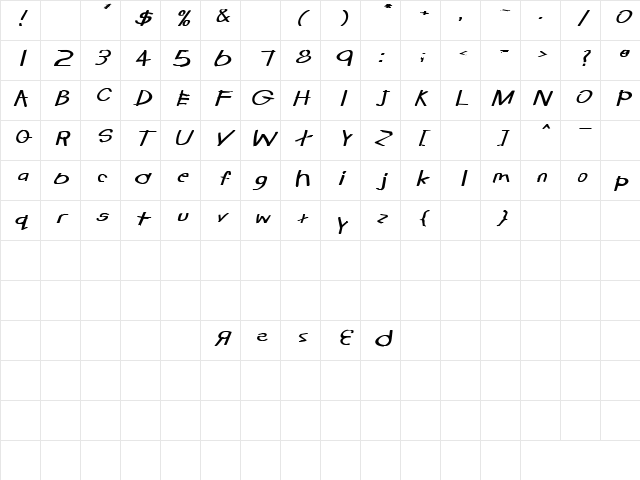
Catatonic 7 Bold Italic Free Font
Catatonic 7 Bold Italic
Design Context for Catatonic 7
Catatonic 7 is a composed and adaptable typeface that performs quietly and consistently across a wide range of design contexts. The slanted form adds forward momentum and visual energy. Its bold stroke weight gives it real presence on the page.
Pro Tip: Use Catatonic 7 for emphasis, pull quotes, and subheadings where its slanted energy can add rhythm to the layout.